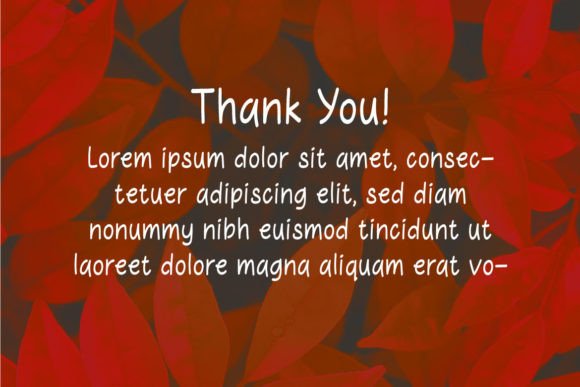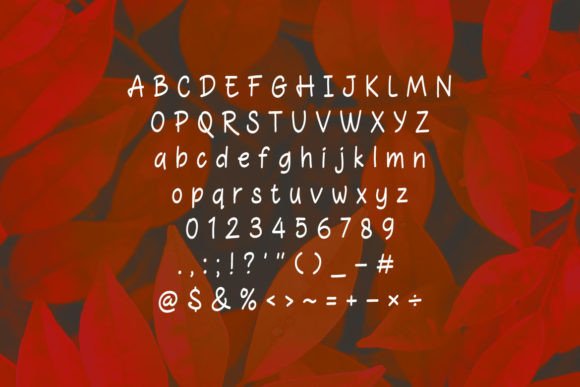
The Agtines Font: A Modern Handwritten Marvel for Your Creative Projects
As a designer, I’ve had my fair share of font frustrations. I recall working on a wedding invitation project, scrolling through pages of fonts, and feeling like I was stuck in a never-ending loop. That was until I stumbled upon the Agtines font. With its unique handwritten style and modern look, it instantly elevated my design game. In this article, I’ll share my experience with Agtines, its features, and how to make the most of it in your creative projects.
An Honest Review of Agtines Font
What I Love About Agtines ✨
- Unique and modern handwritten style, perfect for making a statement
- Versatile and can be used in various projects, from book titles to social media content
- Easy to read and understand, making it perfect for body text
- Supports OpenType features, glyphs, and stylistic alternates for added creativity
- Consistent and well-designed letterforms, ensuring a professional look
While Agtines is an excellent font, there are a few minor quirks to be aware of:
- Limited availability of special characters and symbols 🤔
- Some users may find the font a bit too condensed for certain design applications
The Backstory Behind Agtines
Agtines was designed with the intention of creating a modern, handwritten font that captures the essence of contemporary design. The designer aimed to craft a font that is both elegant and approachable, making it perfect for a wide range of creative projects. With its unique style and versatility, Agtines has quickly become a favorite among designers and crafters.
Q: What type of projects can I use Agtines for?
A: Agtines is a versatile font that can be used in various projects, including book titles, book content, wedding cards, wedding invitations, music covers, children’s books, posters, advertisements, social media content, logos, and more.
Q: Does Agtines support OpenType features?
A: Yes, Agtines supports OpenType features, glyphs, and stylistic alternates, giving you more creative control over your designs.
Q: Is Agtines easy to read?
A: Yes, Agtines is designed to be easy to read and understand, making it perfect for body text and other applications where readability is crucial.